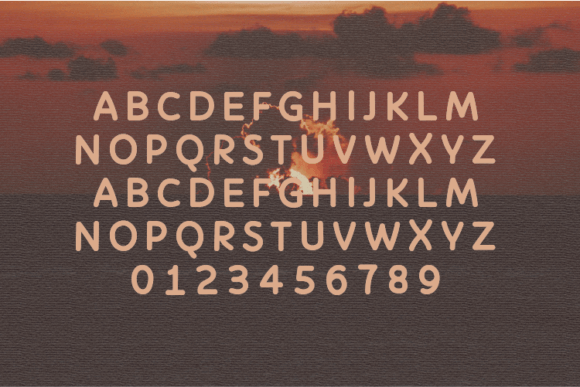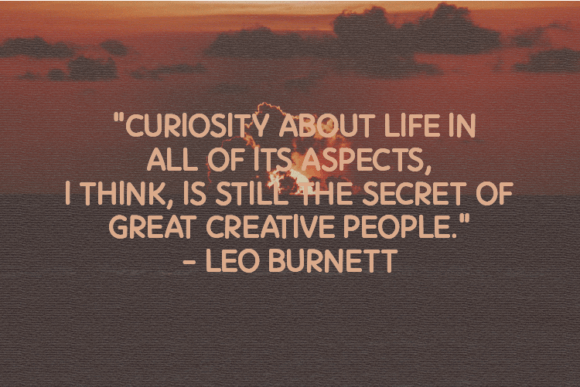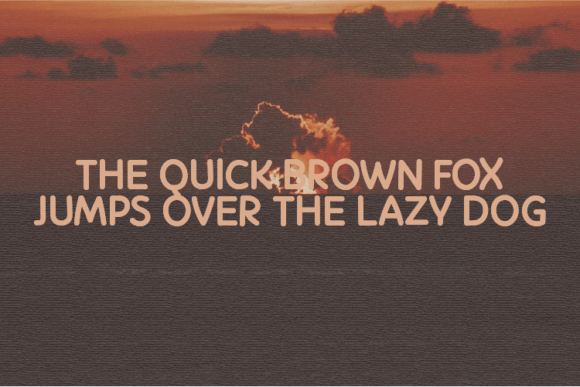
Achilles Font: The Unique Natural Sans Serif for Creative Designs
In the realm of typography, fonts play a pivotal role in conveying messages, evoking emotions, and enhancing the aesthetic appeal of designs. Among the myriad of fonts available to designers and crafters, the Achilles font stands out for its distinctive characteristics and versatility. This article delves into the Achilles font, exploring its unique features, uses, and benefits for creative projects.
What is Achilles Font?
Achilles is a natural sans serif font that has garnered attention for its unconventional creation process. What makes Achilles truly unique is that it was crafted without altering a single node in each character’s indentation. This meticulous approach results in a font that exudes a natural, unrefined charm, setting it apart from more traditional sans serif fonts.
Key Features of Achilles Font
- Natural and Unique: The untouched node approach gives Achilles its distinctive look, making it a great choice for designers seeking a fresh perspective.
- Versatility: Achilles is perfect for a wide range of applications, from quotes and notes to tees and product designs, offering a broad canvas for creativity.
- Legibility: Despite its unique creation, Achilles maintains high legibility, ensuring that messages are conveyed clearly and effectively.
Applications of Achilles Font
The Achilles font, with its natural and unique appeal, finds its utility in various design projects. Here are some of the key areas where Achilles shines:
- Quotes and Notes: Achilles adds a personal touch to quotes and notes, making them stand out with its distinctive charm.
- T-Shirts and Apparel: The font’s unique character makes it an excellent choice for tees and other apparel, offering a stylish and eye-catching look.
- Product Design: For product designers, Achilles provides a fresh typographic solution that can elevate the design of packaging, gadgets, and other products.
- Graphic Design: Achilles can also be a valuable asset in graphic design projects, such as posters, flyers, and brochures, where a natural and unique typography is desired.
For designers and crafters, Achilles offers several benefits:
- Uniqueness: Achilles helps in creating designs that stand out from the crowd, thanks to its one-of-a-kind appearance.
- Flexibility: The font’s versatility means it can be used across various projects, making it a valuable addition to any designer’s toolkit.
- Inspiration: Achilles’ distinctive style can serve as a source of inspiration, encouraging designers to experiment with new and innovative design concepts.
Achilles font, with its natural sans serif style and unique creation process, offers a refreshing alternative for designers and crafters looking to infuse their projects with a distinctive touch. Its versatility, legibility, and aesthetic appeal make it suitable for a wide array of applications, from quotes and apparel to product and graphic designs. As the world of design continues to evolve, fonts like Achilles are leading the way, providing creative professionals with the tools they need to produce innovative and captivating work.
Whether you’re a seasoned designer or a crafter with a passion for typography, Achilles font is definitely worth exploring. Its unique charm and flexibility are sure to inspire and enhance your creative projects.